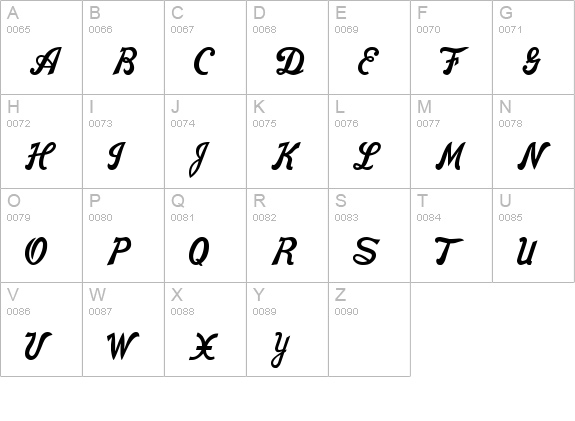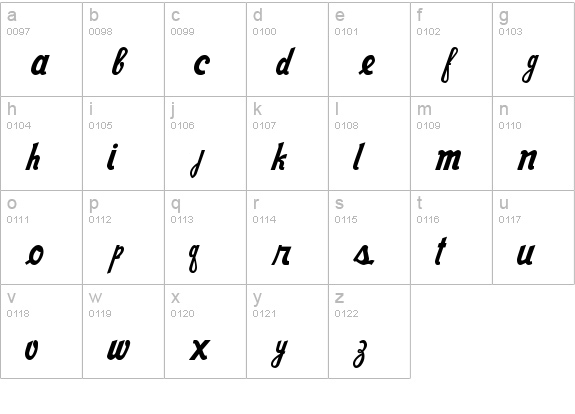
Nike Script Font Details
Nike Script font is a stylish and versatile typeface that exudes elegance and sophistication. With its delicate strokes and graceful curves, this font is perfect for adding a touch of class to any design project. Whether used for a logo, branding materials, or even a wedding invitation, Nike Script font is sure to make a lasting impression. What sets Nike Script font apart is not only its impeccable design but also its availability as a free download. That's right, you can freely access this stunning font at FontsMarket.com, making it accessible to designers and creatives of all levels. With Nike Script font, you have the freedom to unleash your creativity and bring your vision to life. Its smooth lines and balanced proportions make it easy to read and pleasant to the eye, ensuring that your message is conveyed with clarity and style. Whether you're designing for print or digital media, Nike Script font is a versatile choice that can adapt to any project. It adds a touch of elegance to headlines, enhances the readability of body text, and brings a sense of sophistication to any design element. So why wait? Take advantage of the opportunity to download Nike Script font for free at FontsMarket.com and elevate your designs to new heights. With this font in your toolkit, you have the freedom to create beautiful and impactful designs that will leave a lasting impression on your audience.